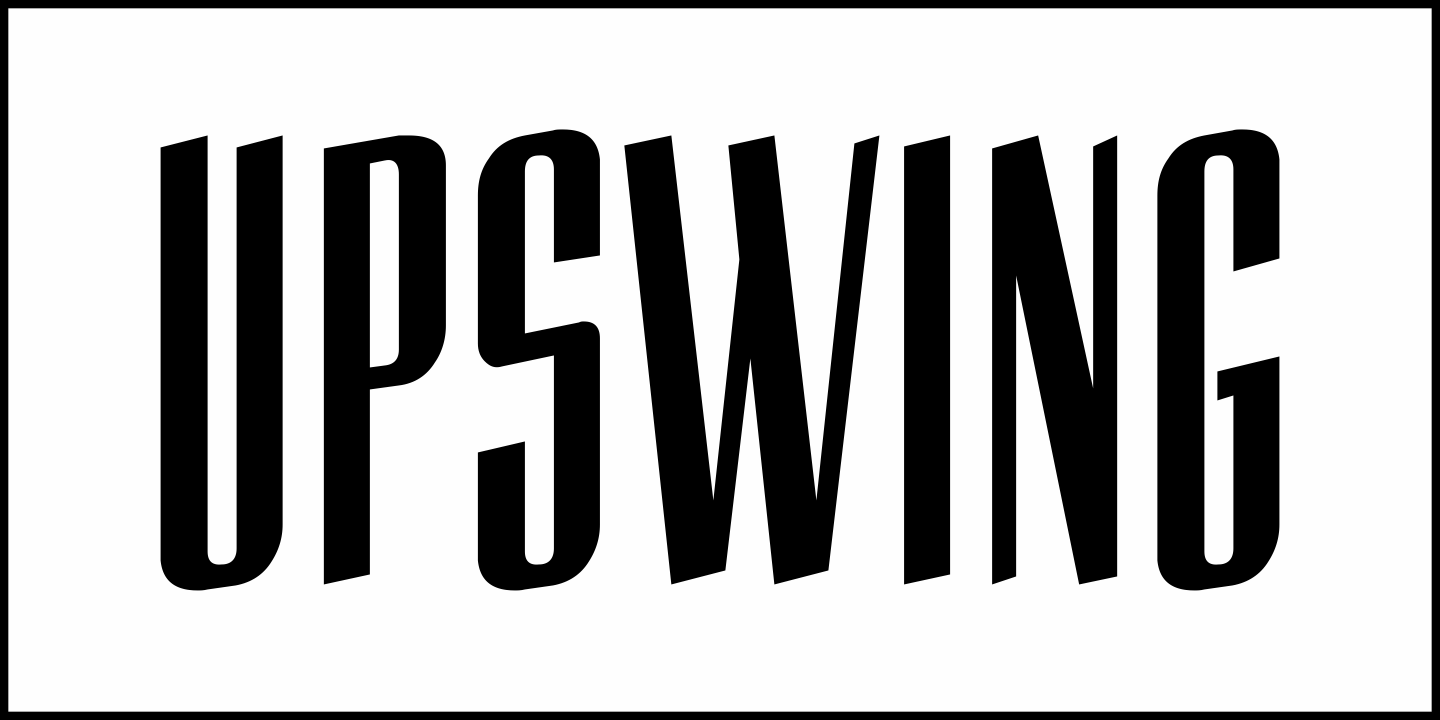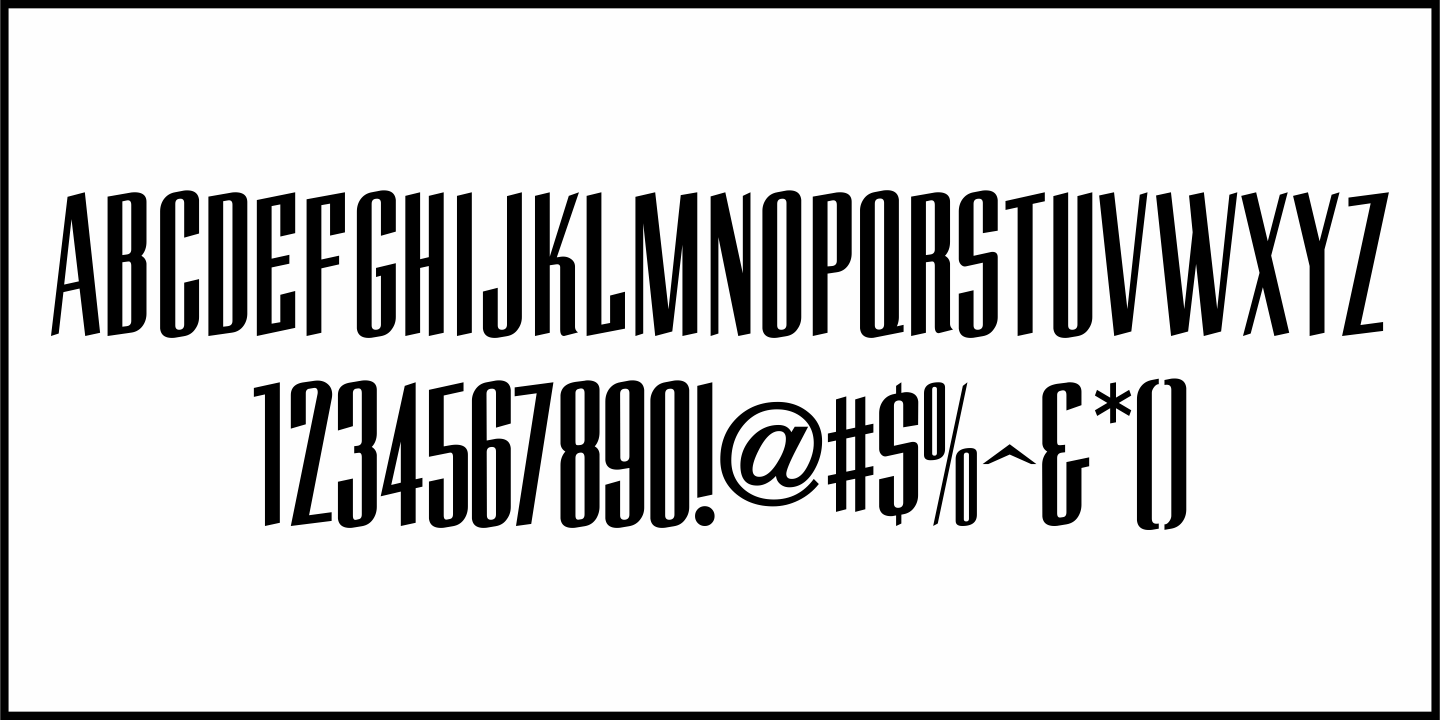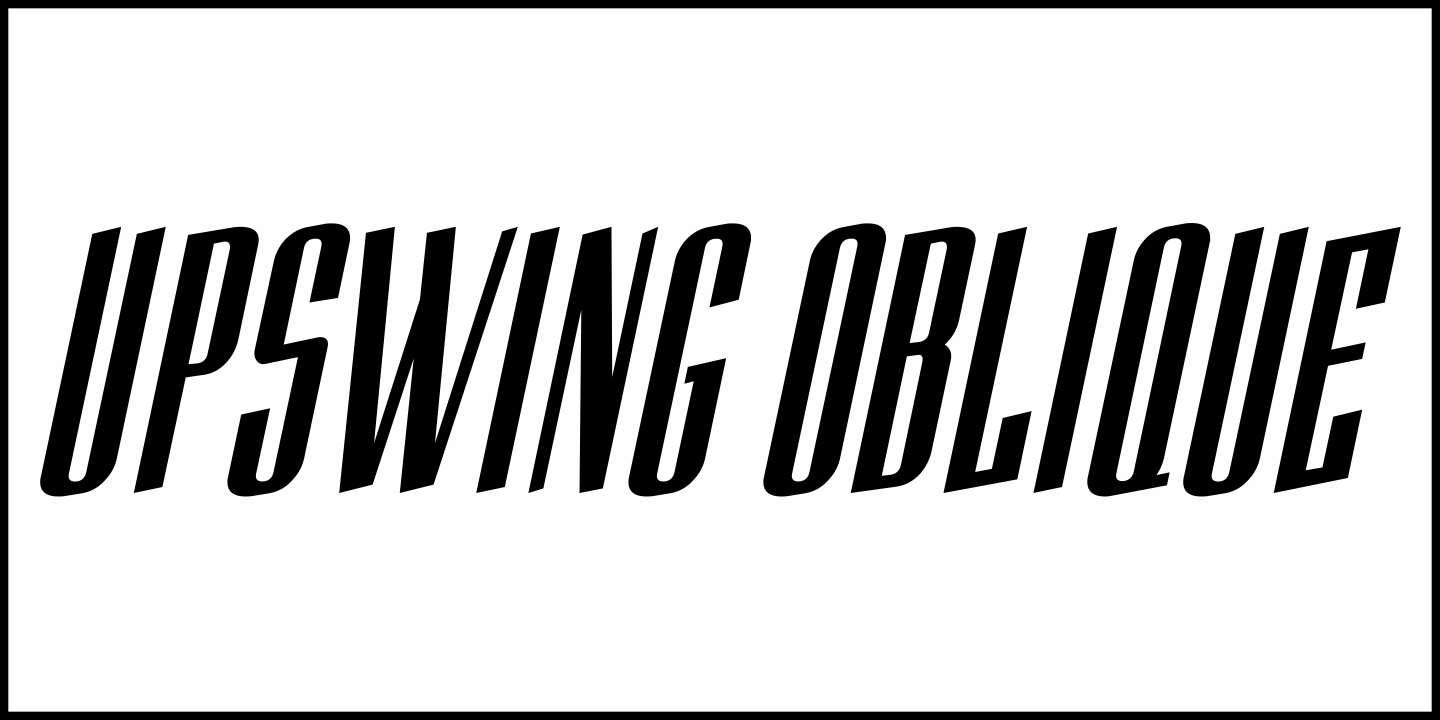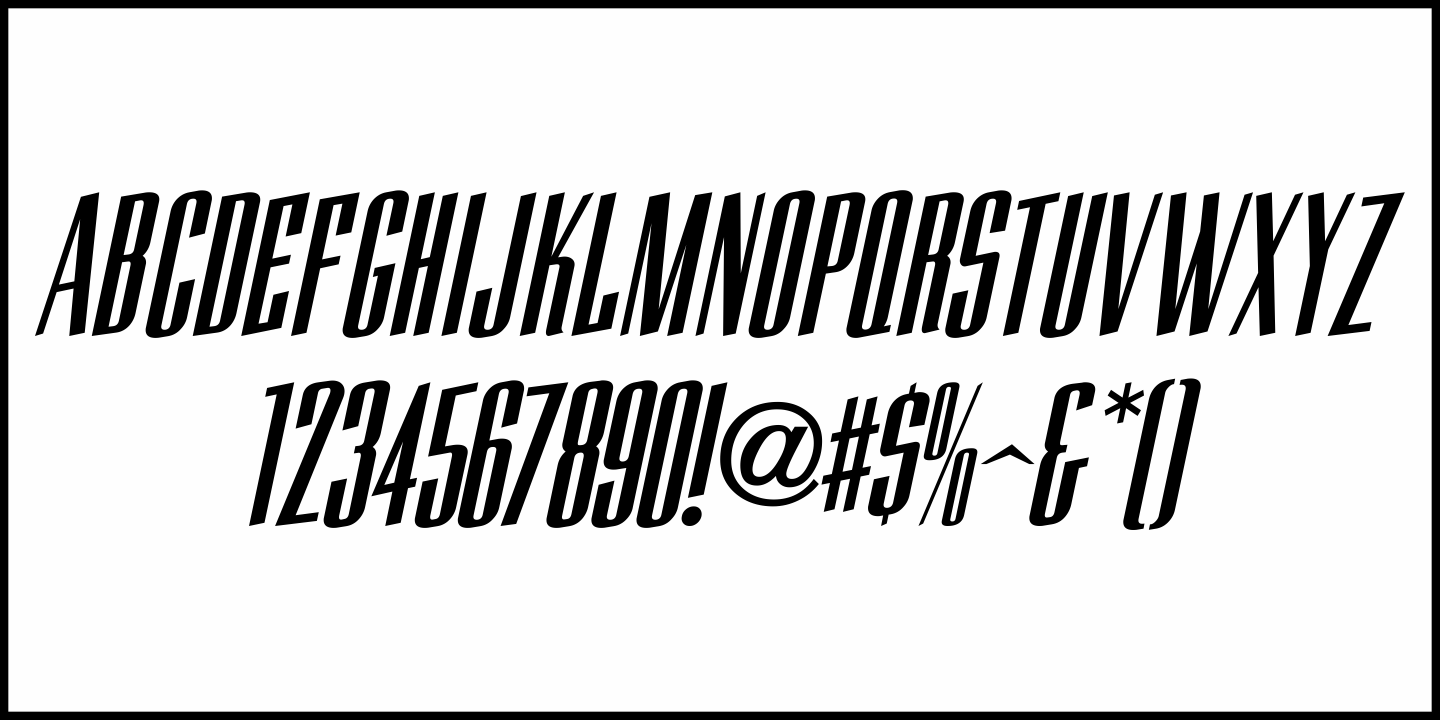
Upswing
An ad in the April 24, 1948 issue of Boxoffice Magazine for Kroehler Push Back Seats featured an unusual sans serif design for the theater chair's name.
The hand lettering was done in a condensed 'thick and thin' slab serif style, but had an obvious jog upward on the right hand side of each character. When the word copy was drawn on an angle, it further implied movement.
This is now available as the digital typeface Upswing JNL in both regular and oblique versions.